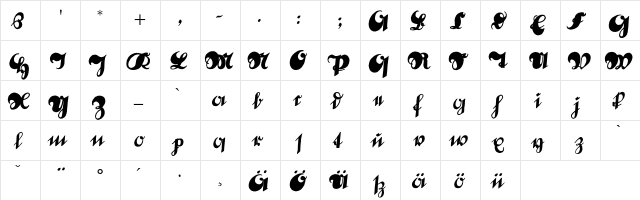
DeutscheSchriftCallwey Regular
Design Context for DeutscheSchriftCallwey Typeface
DeutscheSchriftCallwey is a composed and adaptable typeface that performs quietly and consistently across a wide range of design contexts.